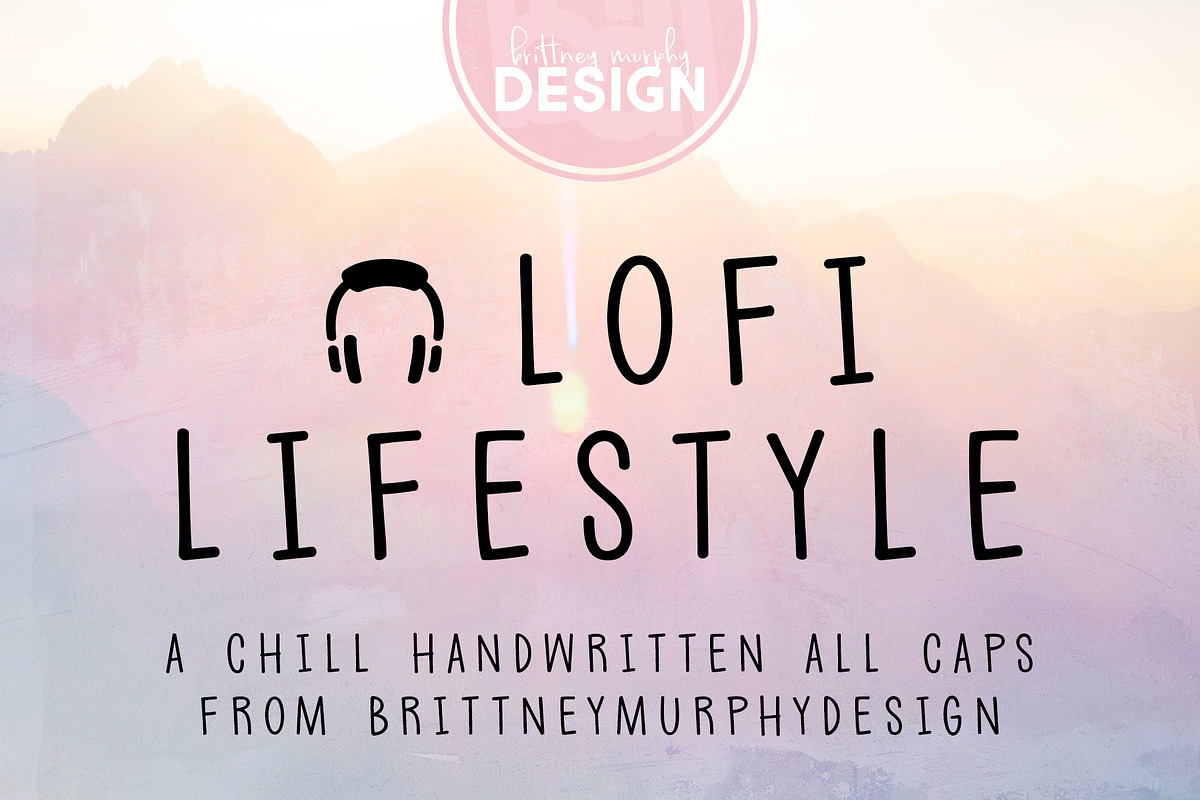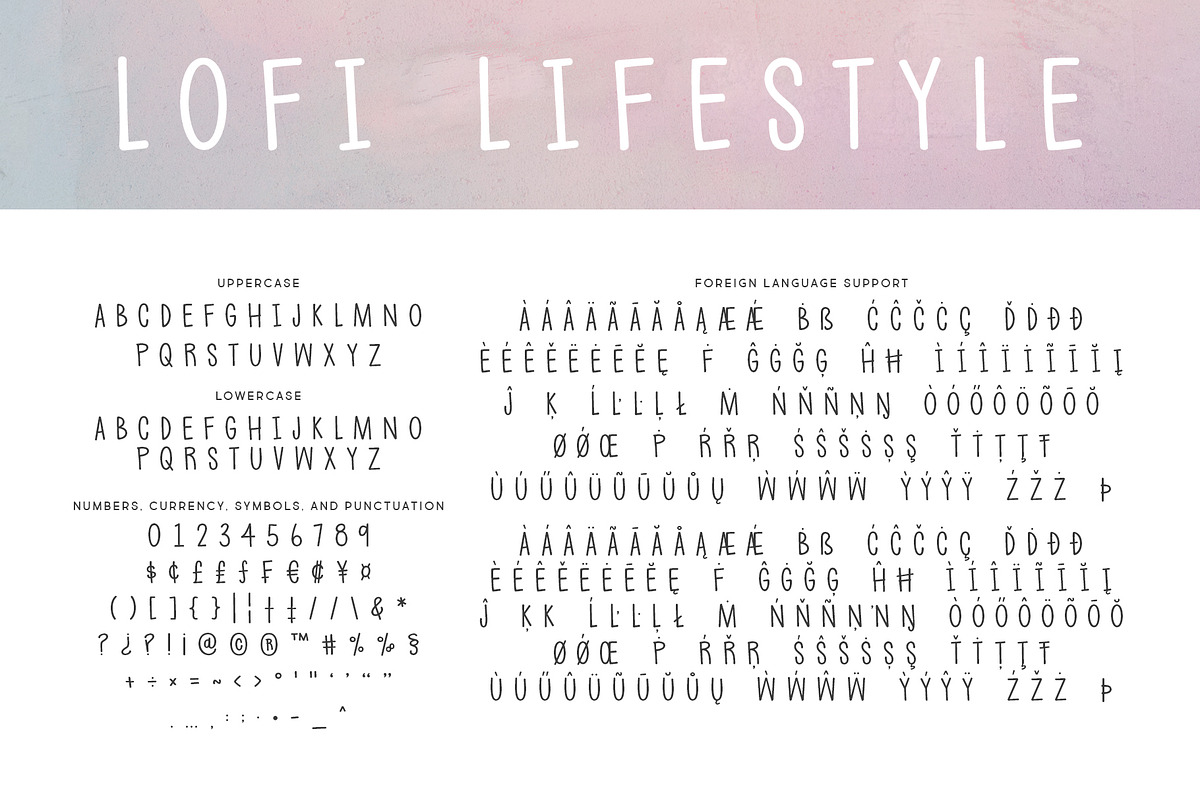
LoFi Lifestyle
LoFi Lifestyle Font is a chill, handwritten, all-caps font. With over 330 glyphs, LoFi Lifestyle supports most Latin-based languages. Use the asterisk (*) for a fun headphone icon you can use in your projects.